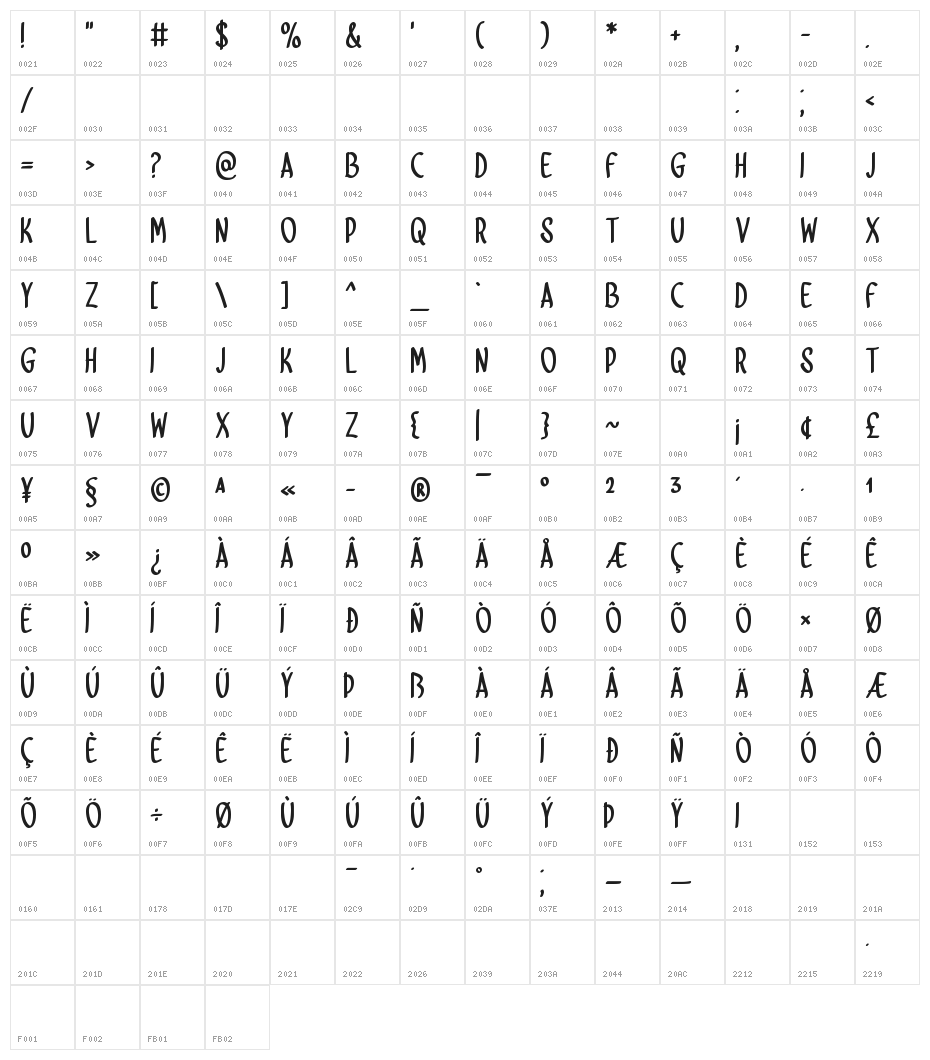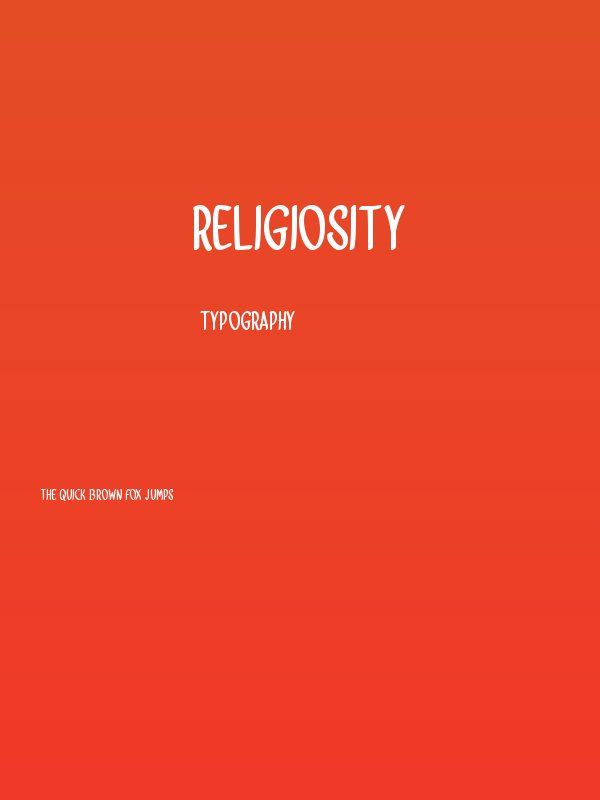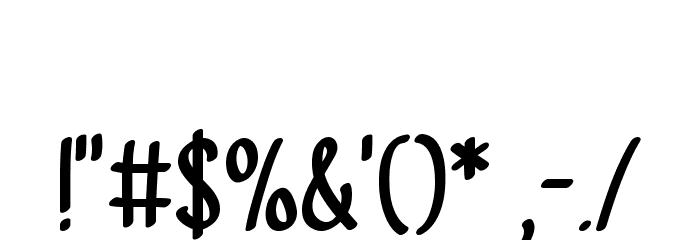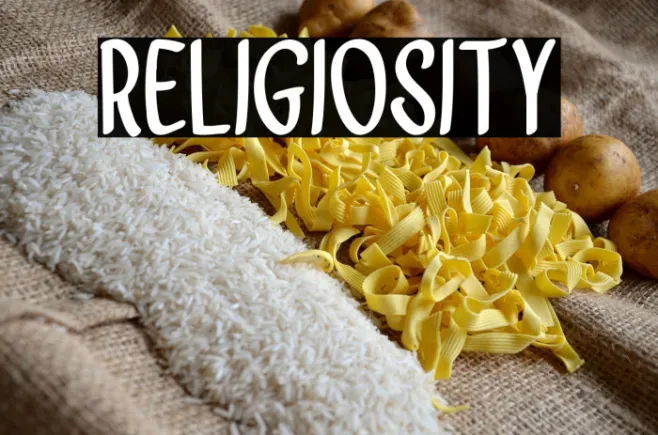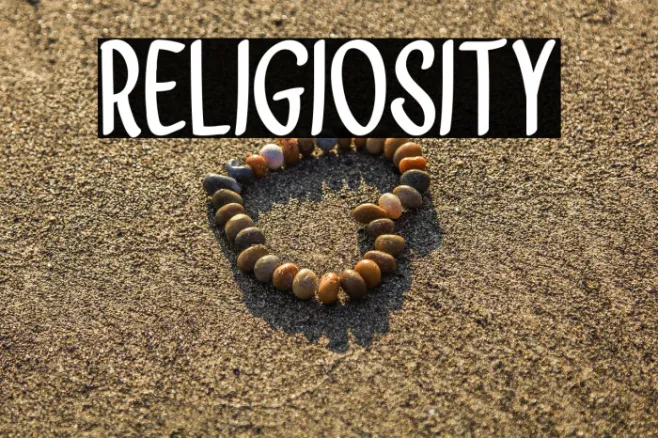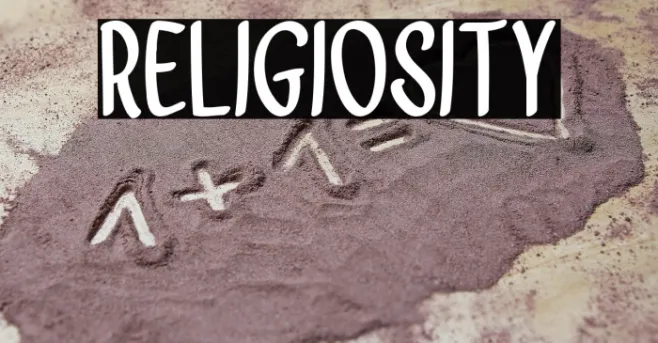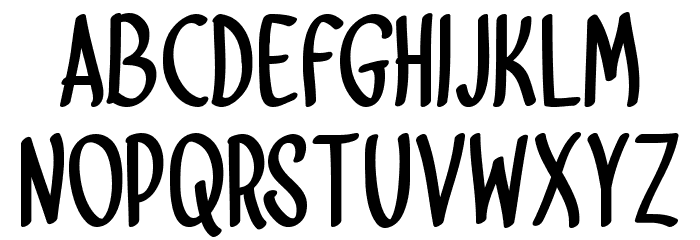
Religiosity Font
Religiosity Description
This font features a playful and informal style with a handwritten appearance. The characters are slightly irregular, giving it a casual and friendly vibe. The strokes are bold and consistent, with rounded edges that enhance its approachable look. The uppercase and lowercase letters maintain a uniform height, contributing to a cohesive visual flow. The numerals and special characters are designed to match the overall style, ensuring versatility in various applications. This font is ideal for projects that require a personal touch or a fun, relaxed atmosphere.
| Proposed Projects | Ideal for greeting cards, children's books, playful branding, and social media graphics. |